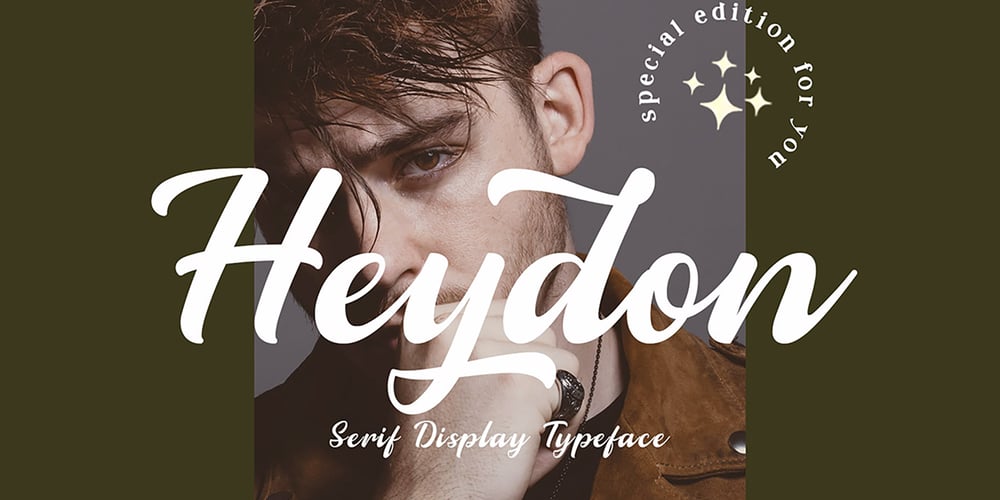
Heydon
Heydon font
Heydon Font Family was designed by Tezar Tantular and published by Keristyper Studio. Heydon contains 1 styles and family package options. Heydon Script is a bold script. Fresh from the oven as inspired to create easy digital lettering for you. It’s perfect for branding projects, logos, wedding designs, social media posts, advertisements, product packaging, product designs, label, photography, watermark, invitation, stationery, and any projects that need handwriting taste.Featured: Standard Uppercase &Lowercase Numeral & Punctuation Multilingual : ä ö ü Ä Ö Ü ß ¿ ¡ Alternate & Ligature PUA encoded We recommend programs that support the OpenType feature and the Glyphs panel such as Adobe applications or Corel Draw. so you can use all the variations of the glyphs. Hope you enjoy our fonts!